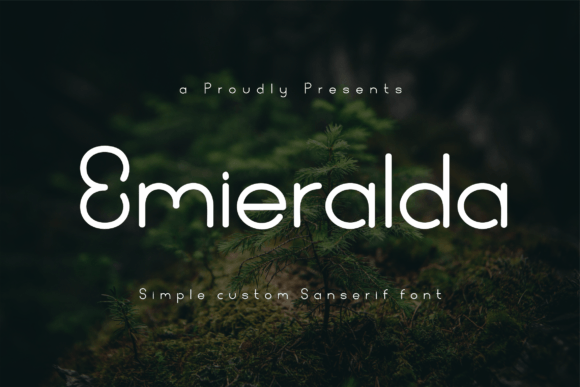
Step into a world of elegance and sophistication with Emieralda Font, a modern sans serif font that exudes timeless charm. Its graceful curves and crisp lines evoke a sense of luxury and refinement, making it the perfect choice for elevating your creations.
With Emieralda Font, your business ventures will soar to new heights. Its sleek and professional aesthetic commands attention, leaving a lasting impression on clients and customers alike. Whether you're crafting alluring fashion catalogs, designing eye-catching apparel lines, or creating captivating album covers, Emieralda Font will infuse your projects with a touch of unparalleled style.
But Emieralda Font's versatility extends far beyond the realm of business. Its versatility knows no bounds. Unleash your creativity and adorn your social media profiles, craft beautiful magazine layouts, or design captivating advertisements that will draw attention like moths to a flame. Emieralda Font is your secret weapon for captivating audiences and leaving an indelible mark on the digital landscape.
The possibilities with Emieralda Font are as boundless as your imagination. Its elegant curves will add a touch of sophistication to your signature, making it the perfect finishing touch for all your personal branding endeavors. It will lend an air of authority to your logos, ensuring your brand stands out from the crowd.